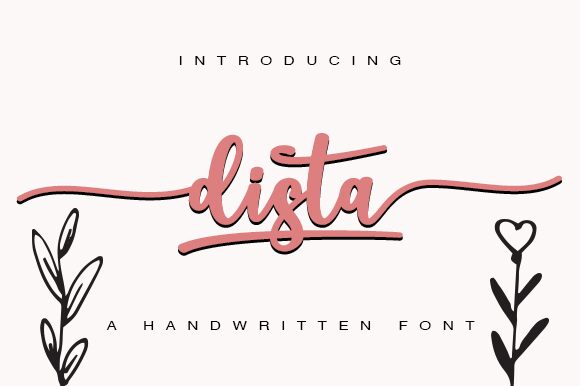
Dista is a stunning semi-light, condensed handwritten font by Wahyu Studio. Its unique style makes it perfect for adding a personal touch to any project. Whether you're designing wedding invitations, creating logos for a boutique clothing store, or putting together social media graphics to promote your brand, this font will give your work that extra special something. With its bold strokes and elegant curves, Dista is sure to make a statement and grab attention wherever it's used. Give your designs the creative edge they deserve with Dista - the perfect semi-light handwritten font for any project!